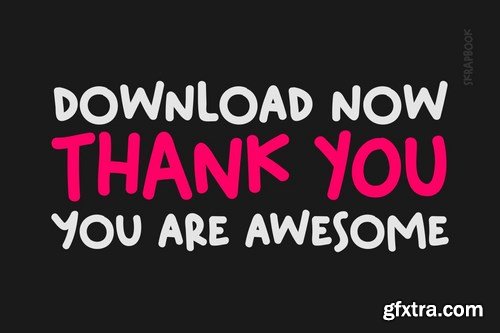
Introducting Scrapbook
Even though SKRAPBOOK has that cute rounded shape and bouncy baseline, doesn't mean he has to stay cute to everyone. SKRAPBOOK is all about attitude, rebelious, and in-your-face. comes in all caps shape with different height between upper and lowercase. Support several multi language as well.